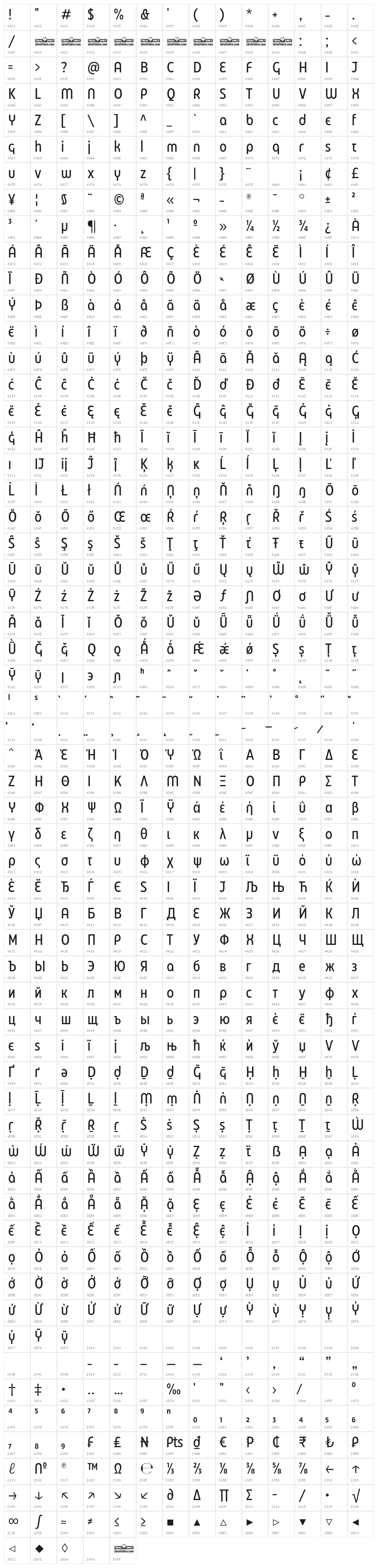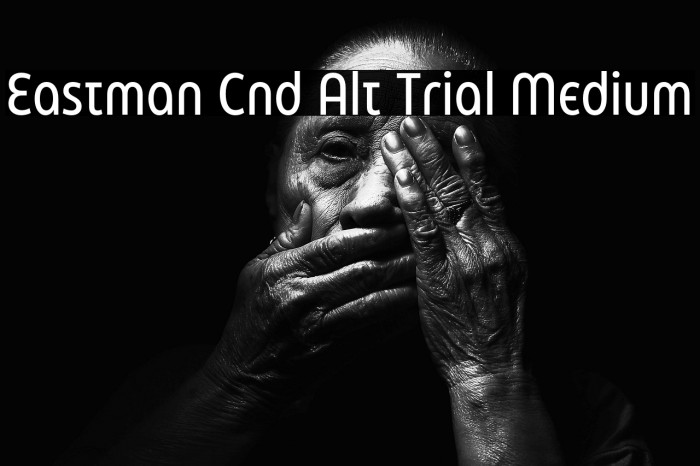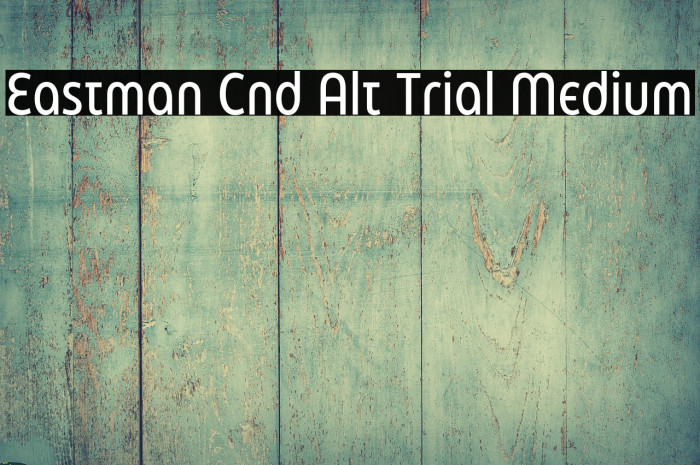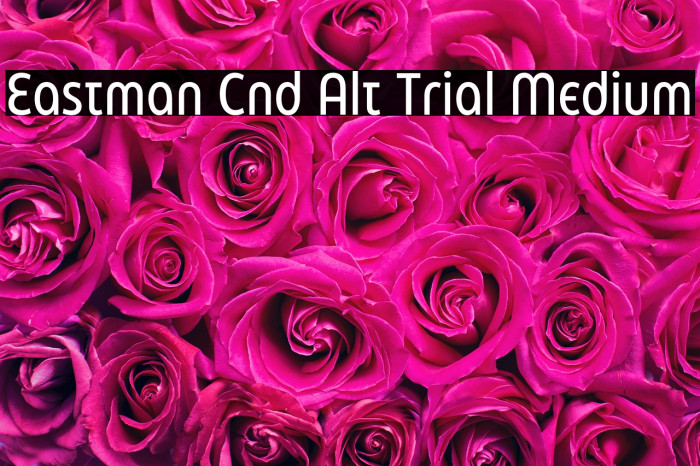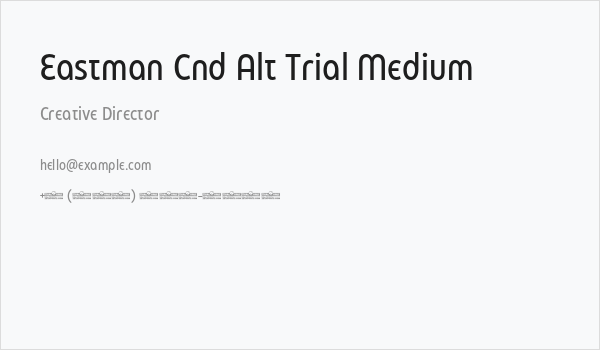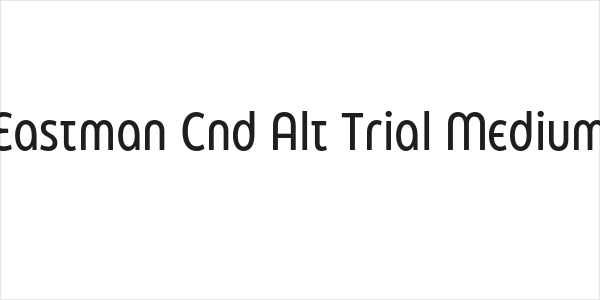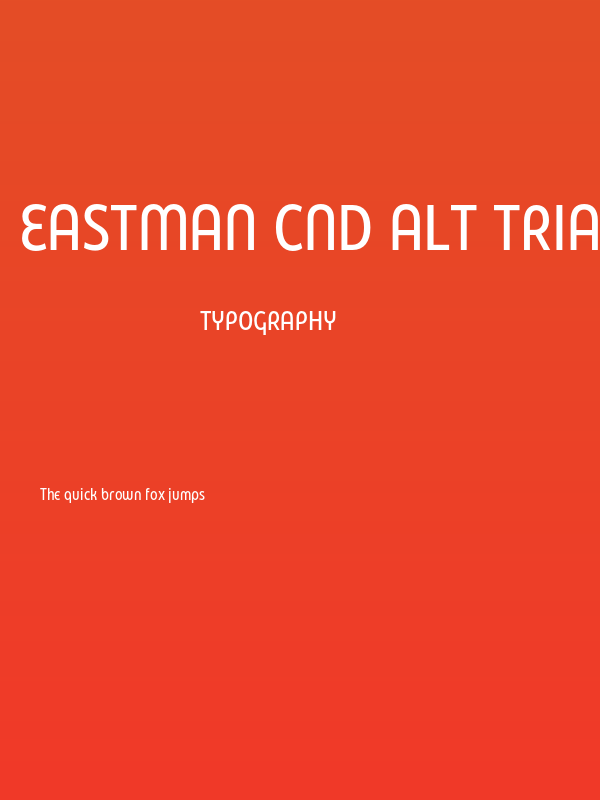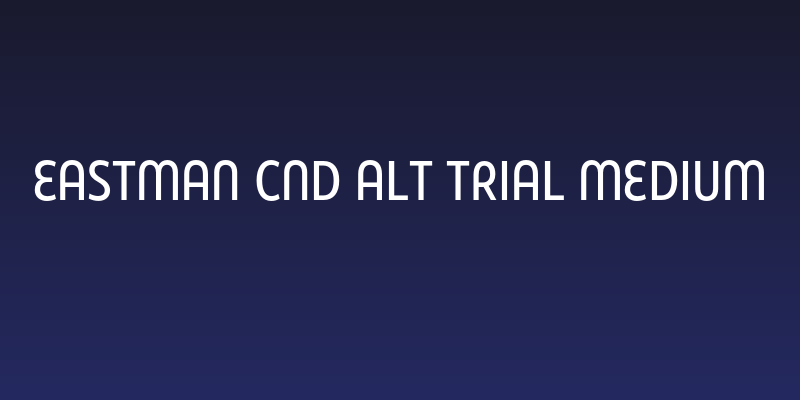
Eastman Cnd Alt Trial Medium Font
Eastman Cnd Alt Trial Medium Description
This font features a modern, geometric sans-serif style with clean lines and a uniform stroke width. The characters are slightly condensed, giving it a compact appearance. The uppercase letters are tall and maintain a consistent height, while the lowercase letters have a rounded, friendly look. The numerals and special characters are designed to match the overall aesthetic, ensuring readability and visual harmony. The font's simplicity and clarity make it versatile for various design applications.
| Proposed Projects | Ideal for branding, advertising, web design, and editorial projects where a modern and clean look is desired. |